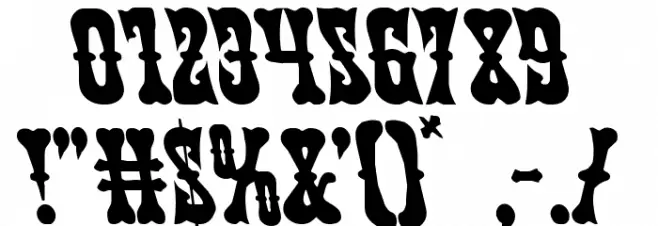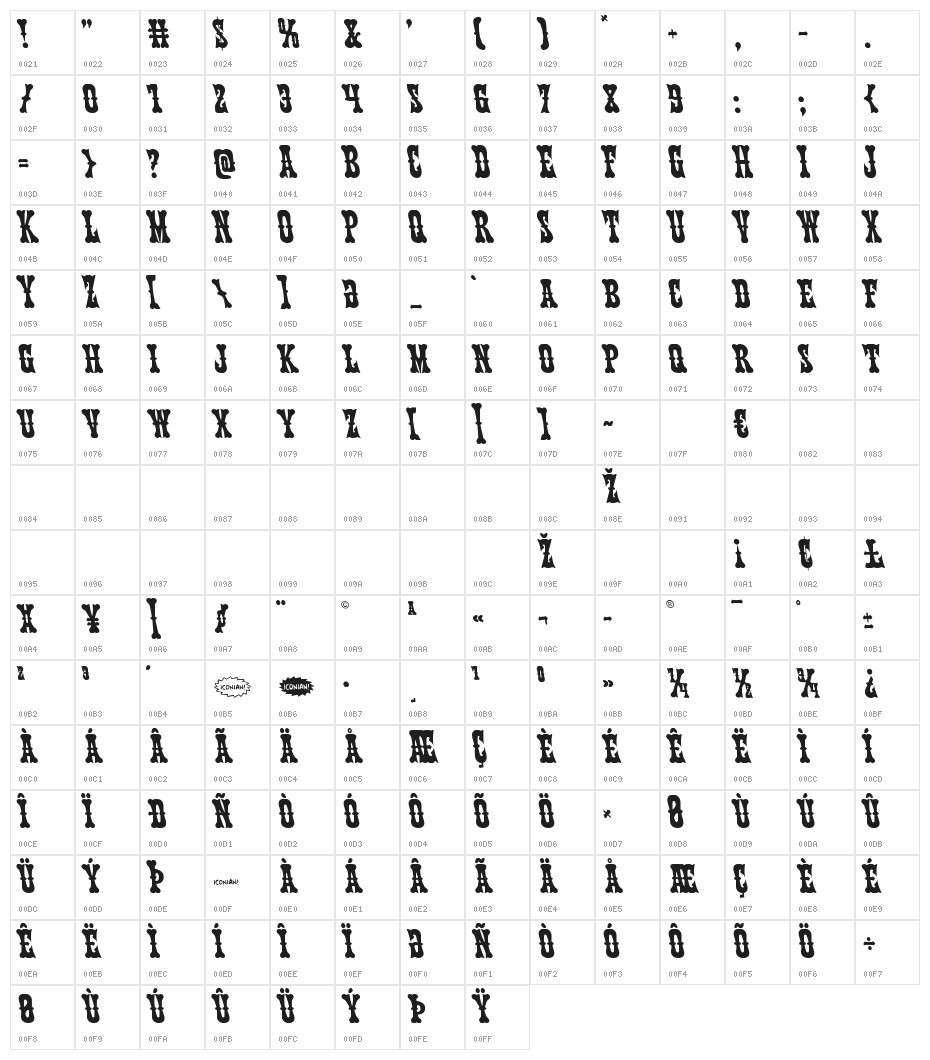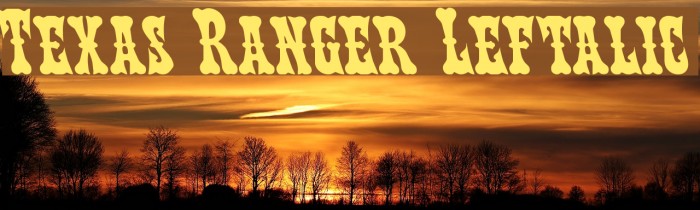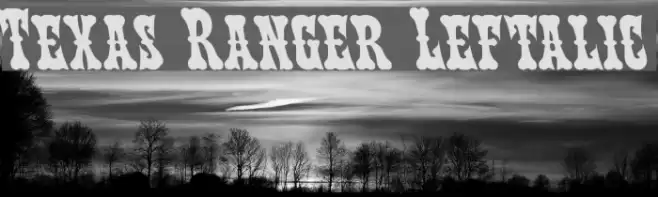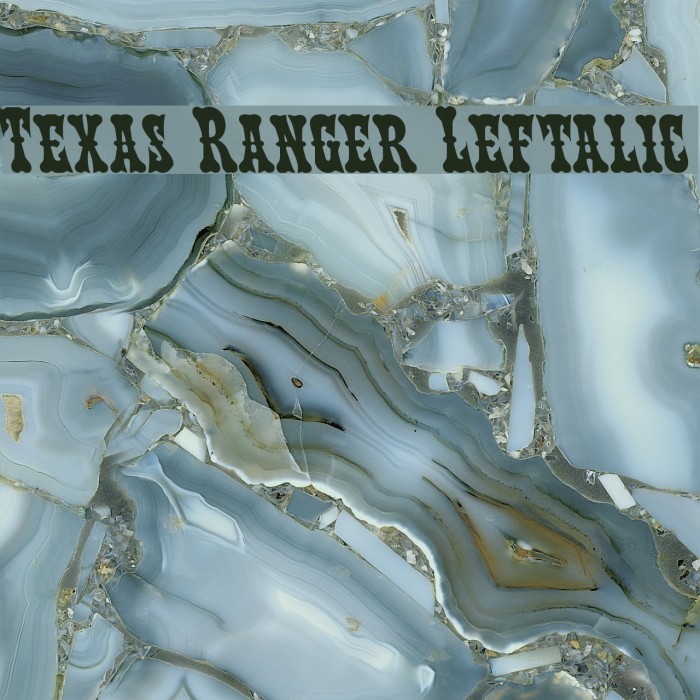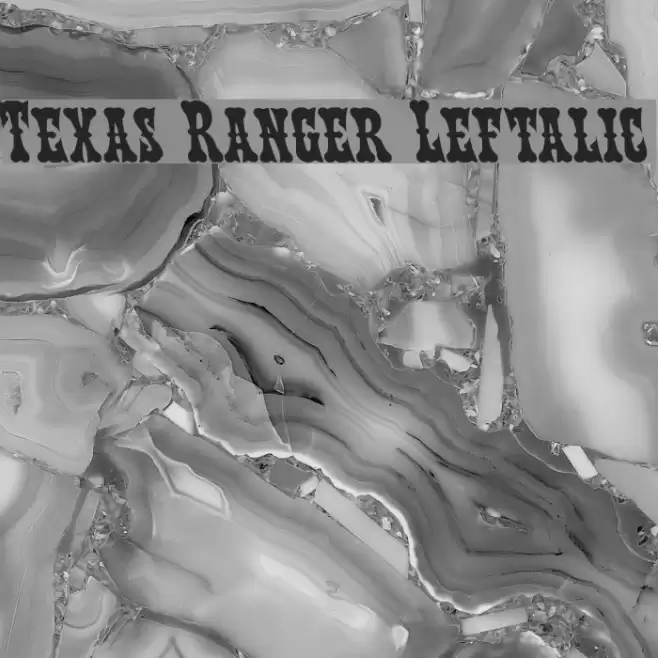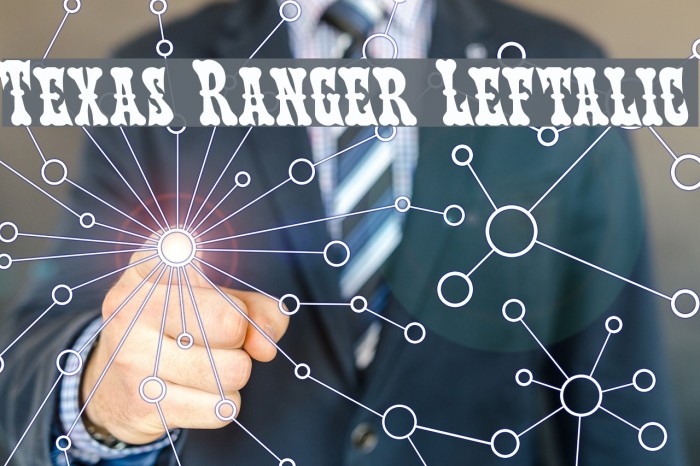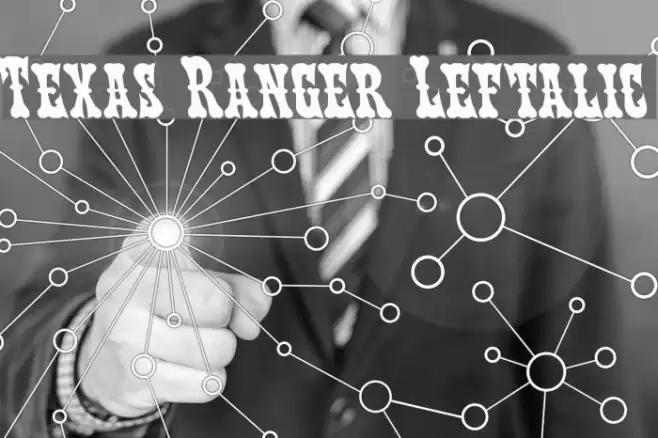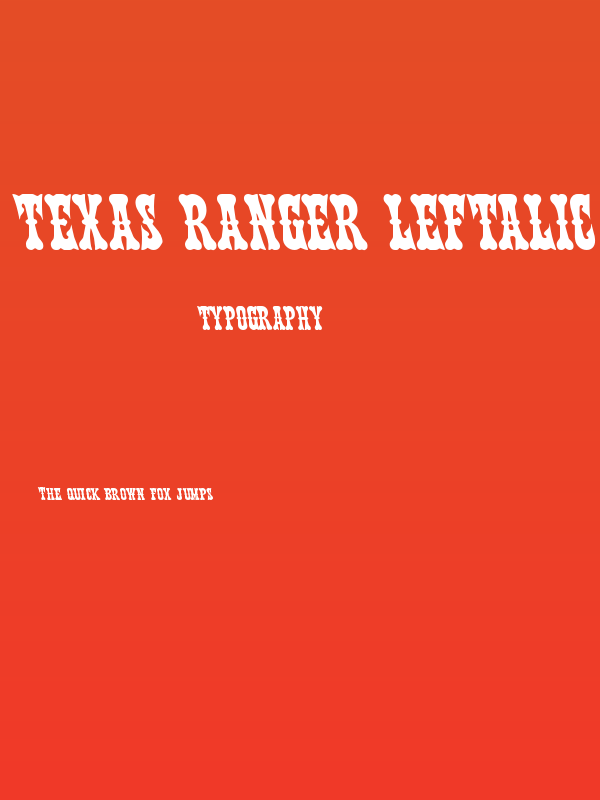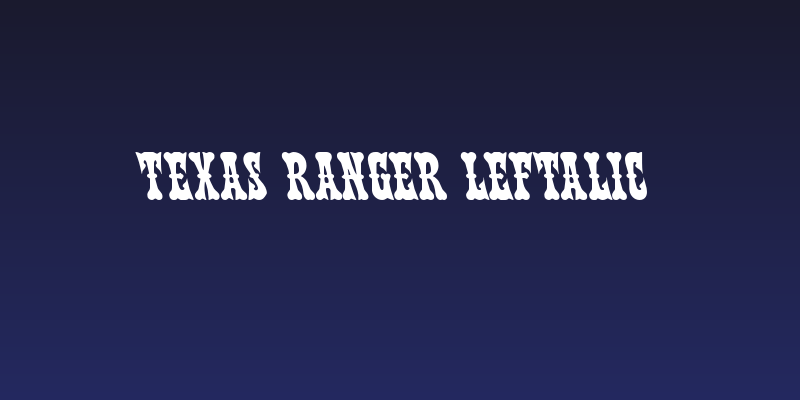
Texas Ranger Leftalic Font
Texas Ranger Leftalic Description
This font features a bold, decorative style with a distinct Western flair. The characters are heavily stylized, with thick strokes and unique, sharp serifs that give it a rugged, vintage appearance. The uppercase and lowercase letters maintain a consistent design, emphasizing boldness and a strong presence. The numbers and special characters follow the same aesthetic, ensuring uniformity across all glyphs. This font's dramatic and eye-catching design makes it ideal for projects that require a touch of the Wild West or a vintage, adventurous theme.
| Overall Style | Vintage, Western |
| Proposed Projects | Ideal for posters, branding, and themed event invitations that require a Western or vintage aesthetic. |